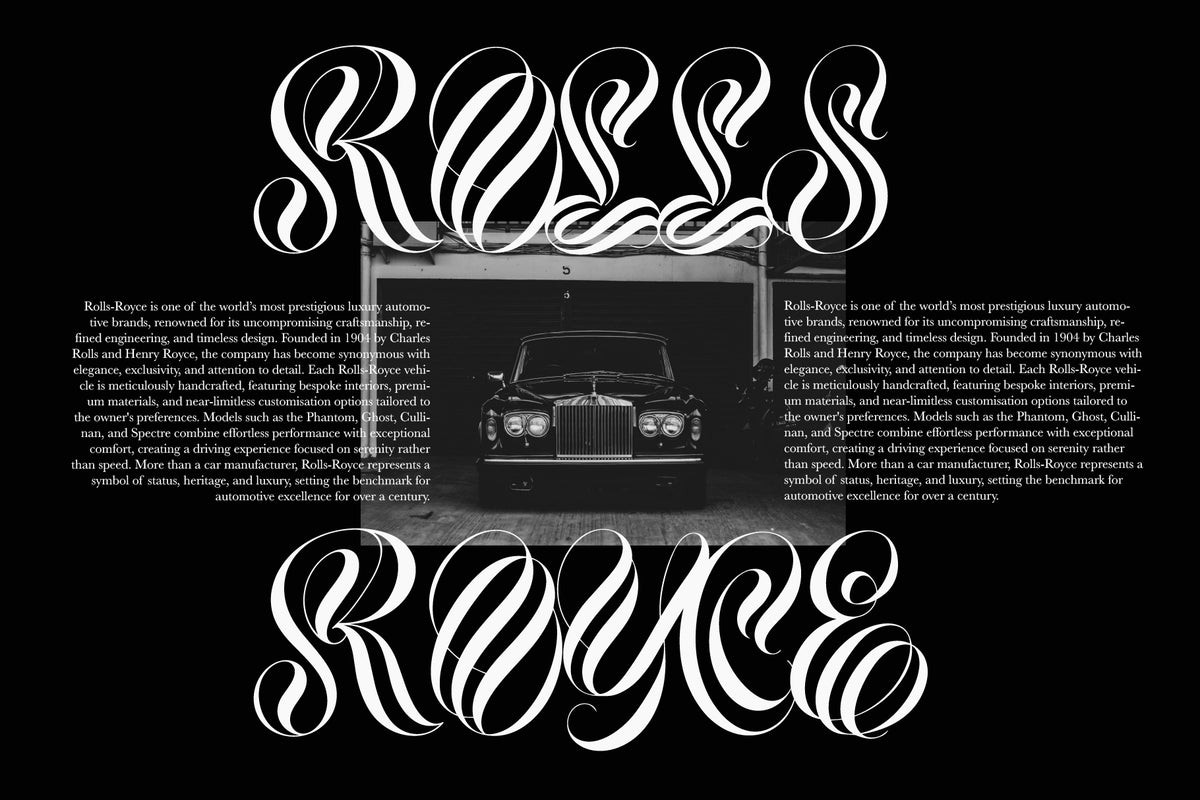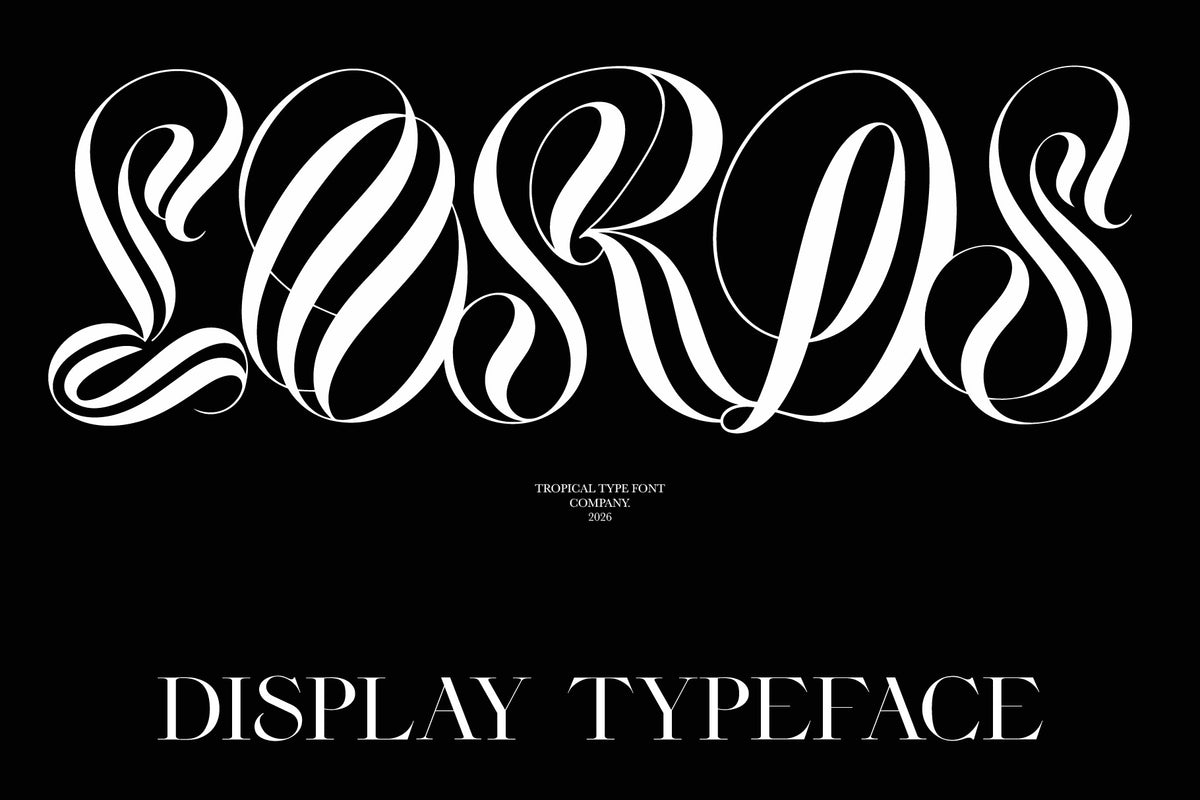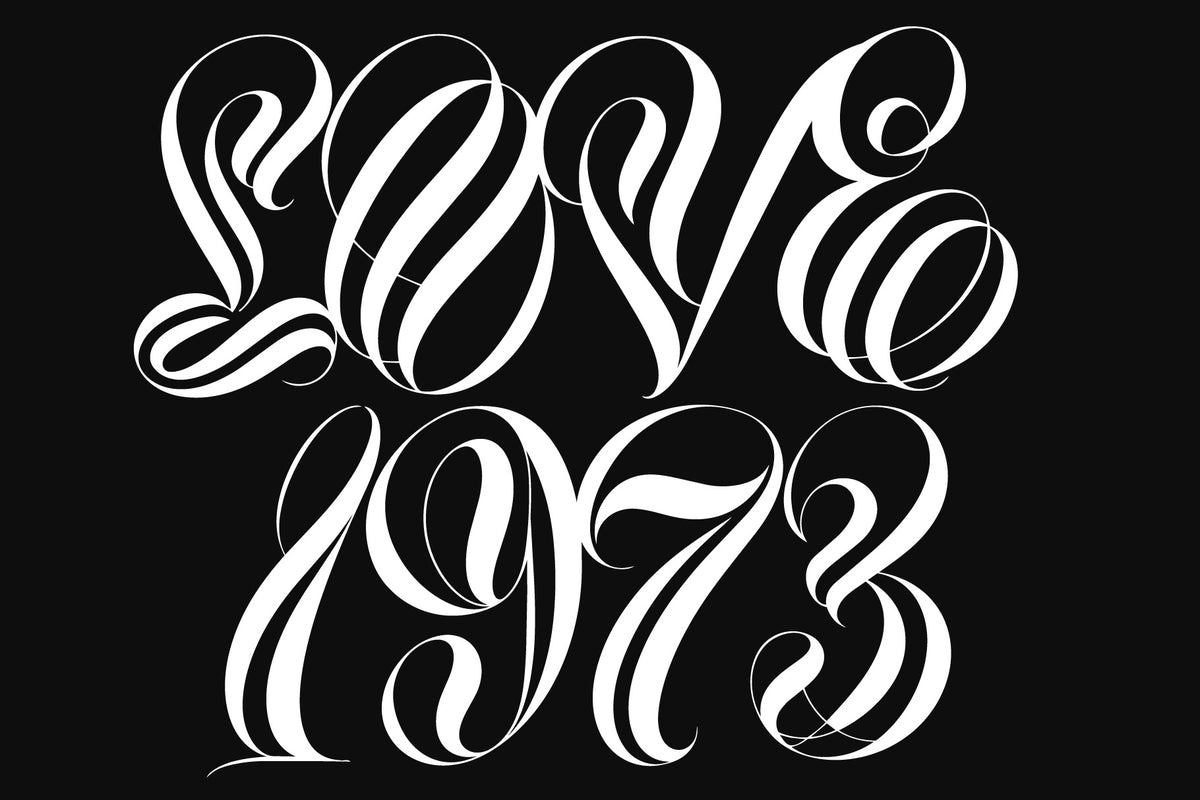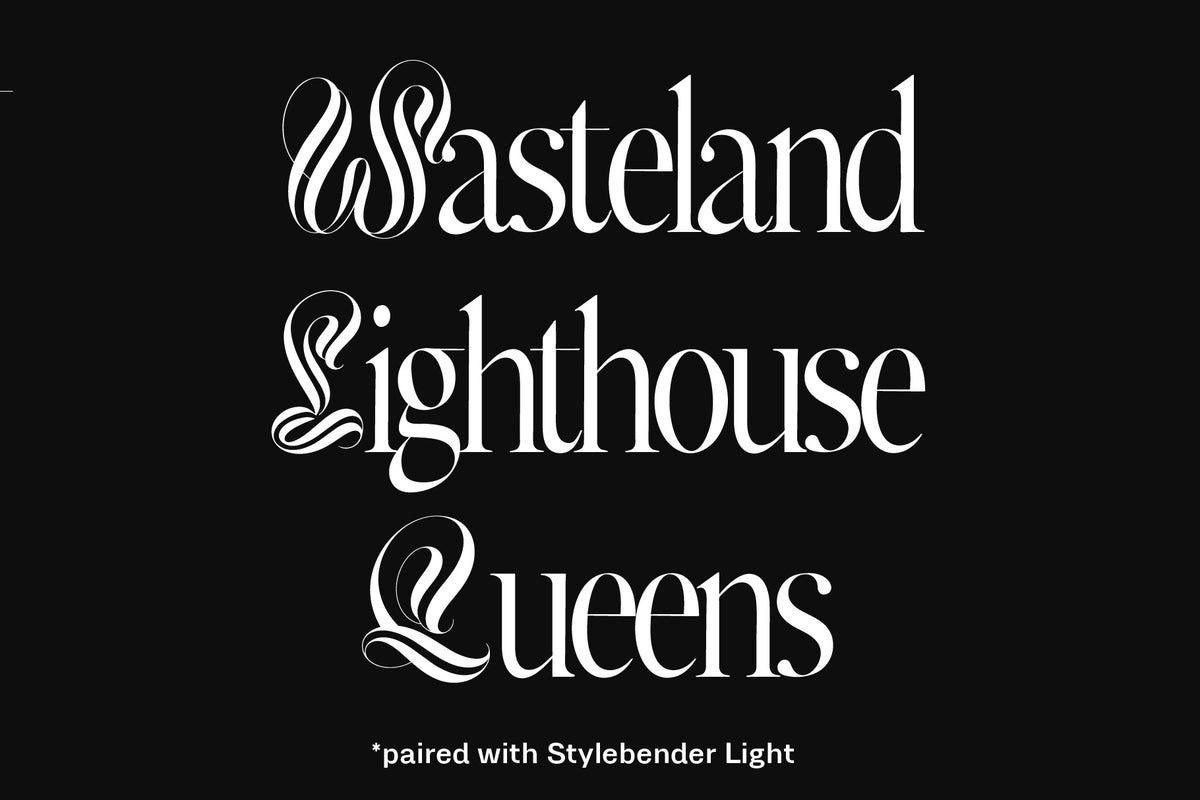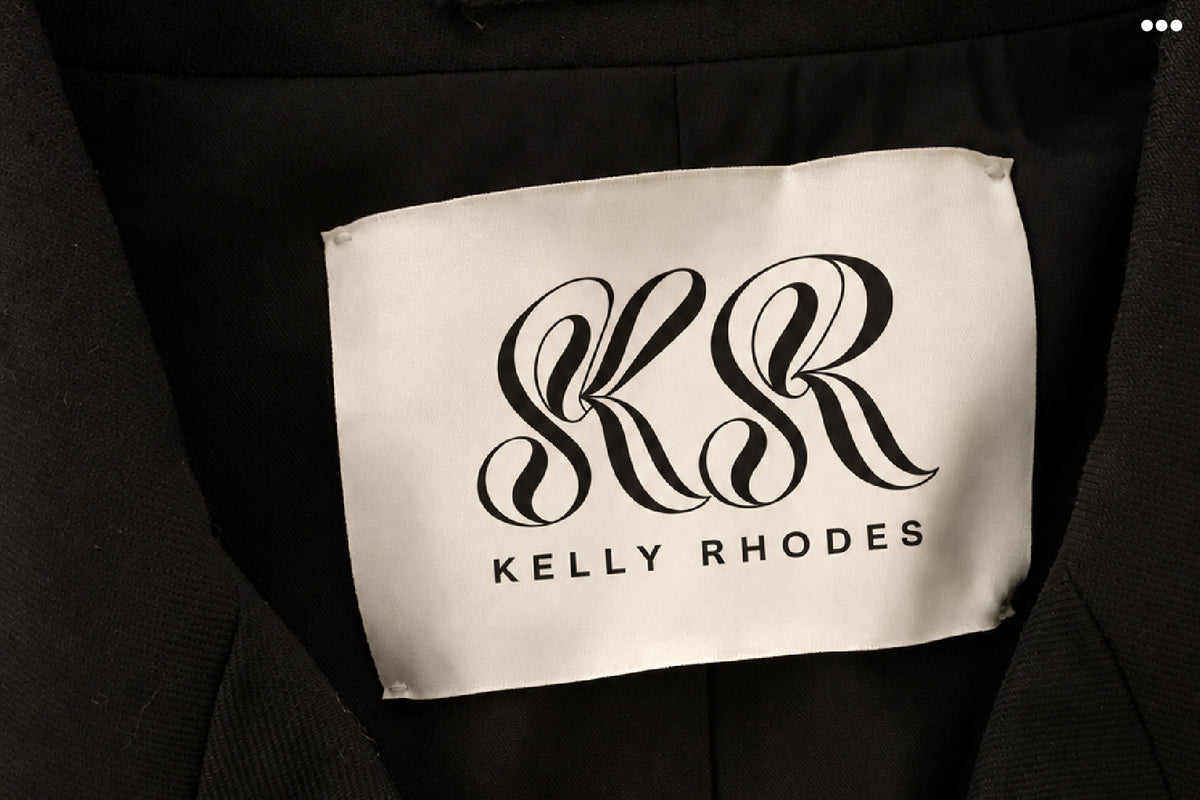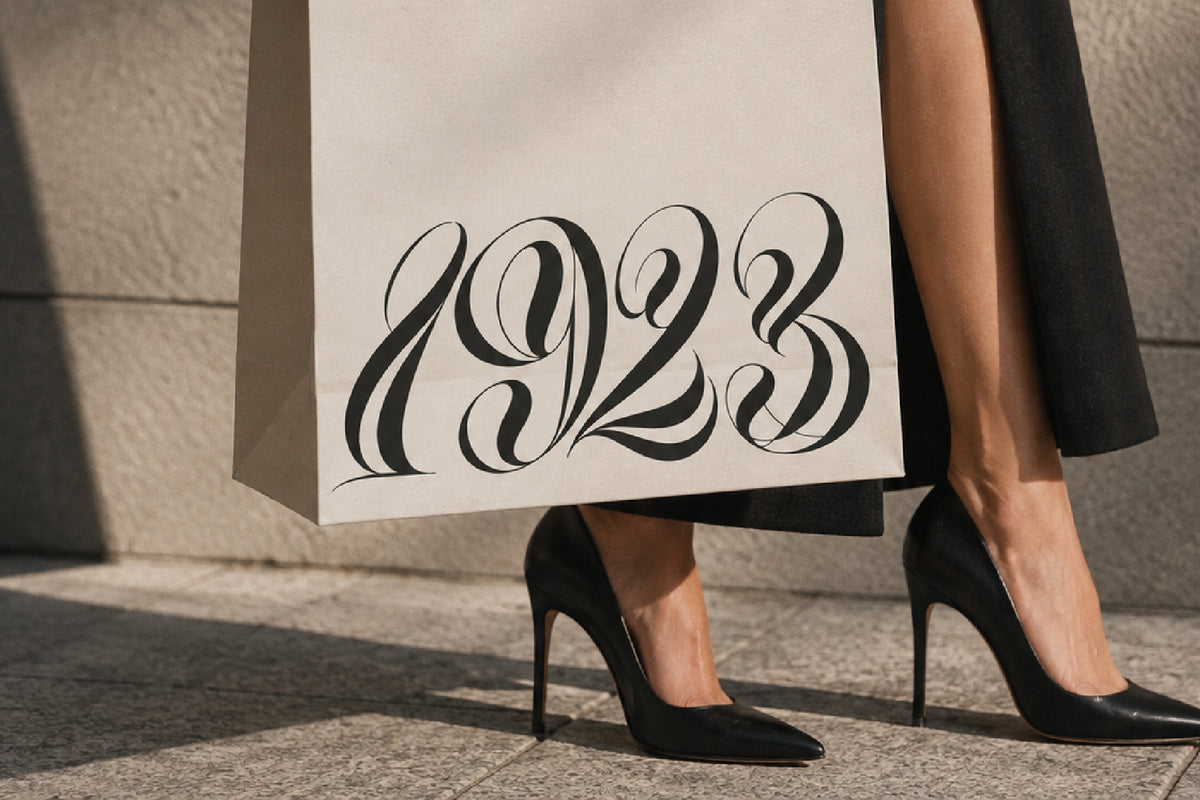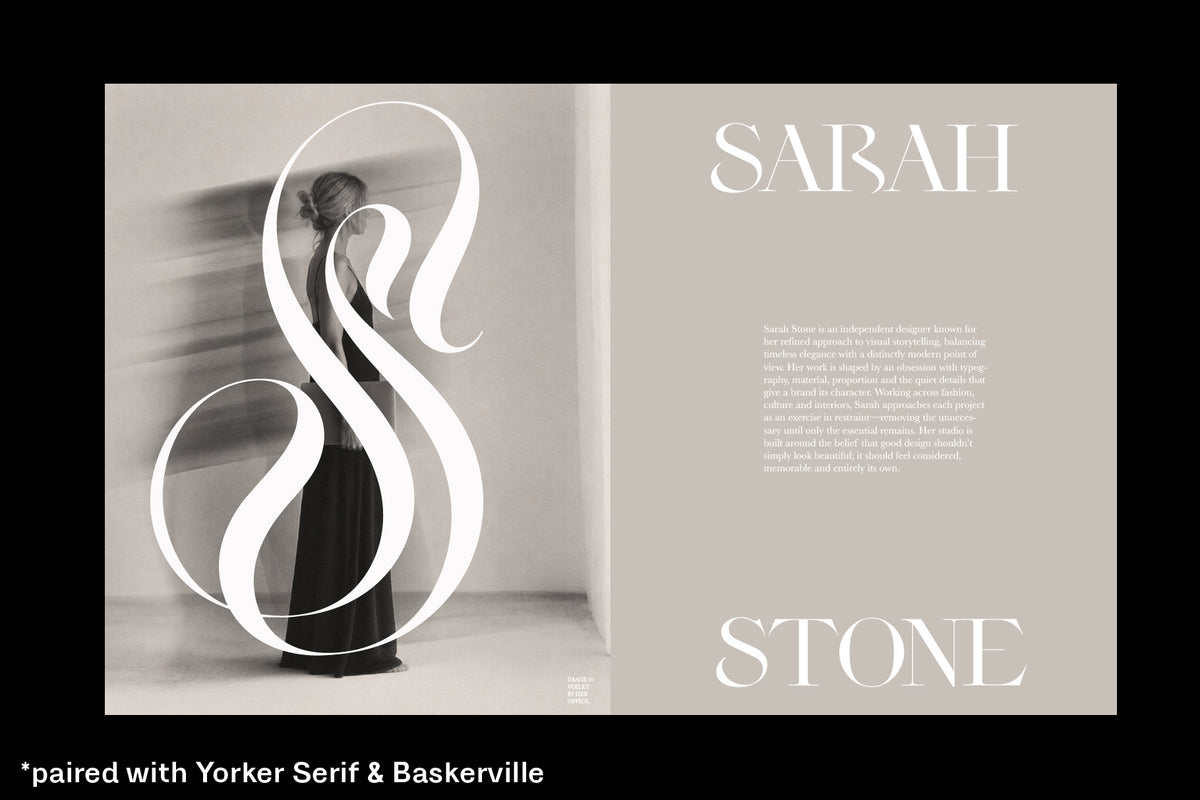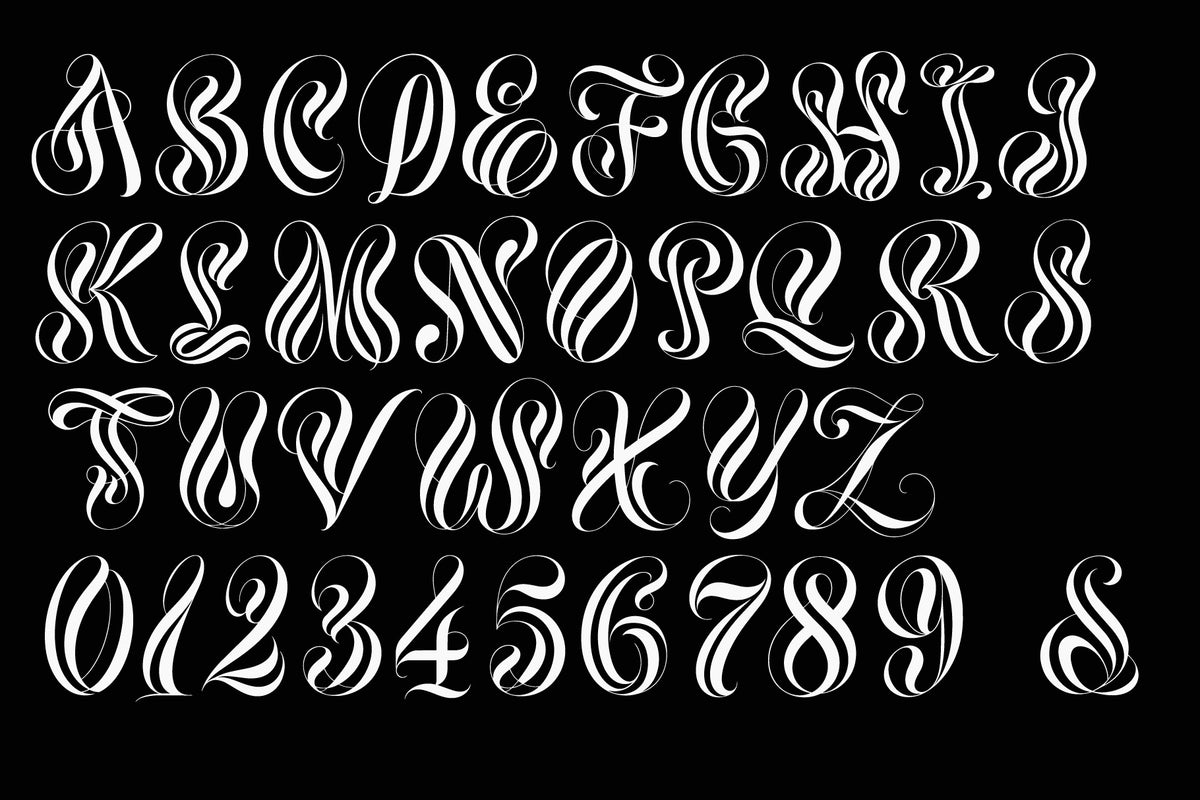
Lords Display
Lords Display is not for peasants! This lux ornate display font is guaranteed to stand out.
Make a monogram, make a logo, use sparingly by mixing with clean serifs.
NOTE: THIS IS AN ORNATE LETTERING FONT, IT ONLY CONTAINS UPPERCASE, NUMBERS AND AN AMPERSAND.